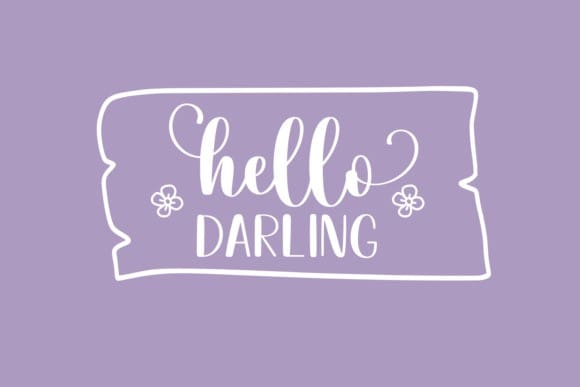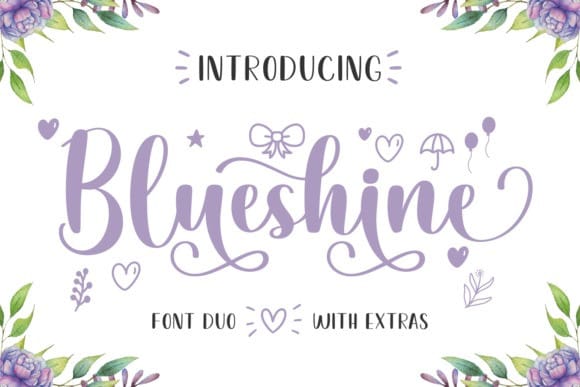
Blueshine Script Font
Blueshine Script Font is sweet and classy duo font (handwritten and sans serif). It maintains its classy calligraphic influences while feeling contemporary and fresh. Fall in love with it and bring your projects to the highest levels!